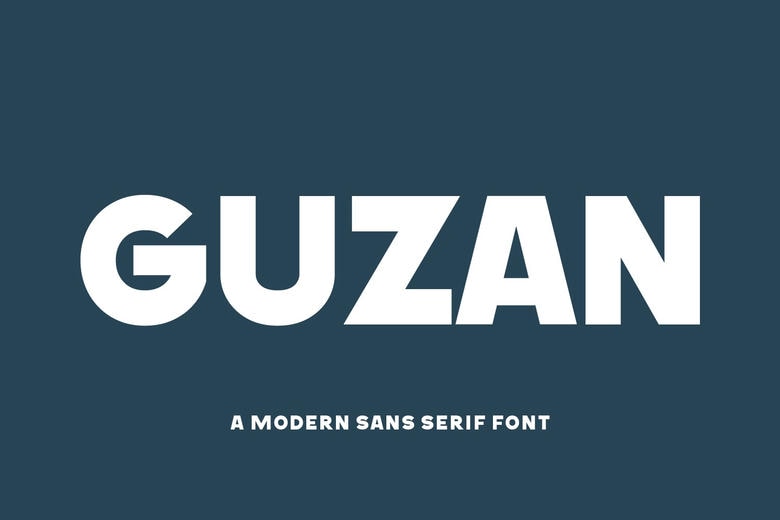
Guzan Font
Guzan is clean and simple sans-serif font type that is suitable for both business and creative uses. The concept has a geometrically simplistic composition making it suitable for brand identity, magazines, newspapers, and website design. Comendable in expressing elegance and simplicity, Guzan fits perfectly well in large as well as small font sizes.
Guzan Sans Serif Font